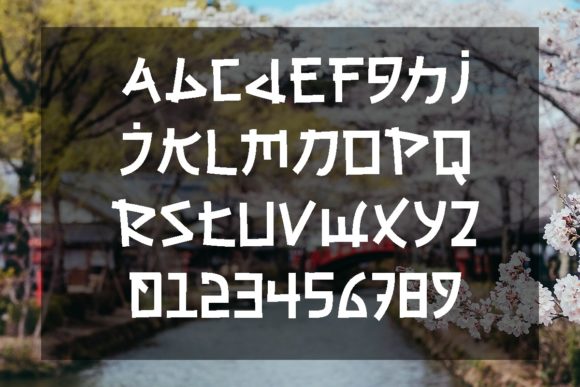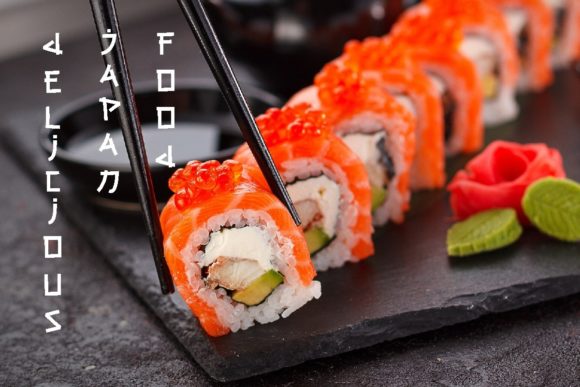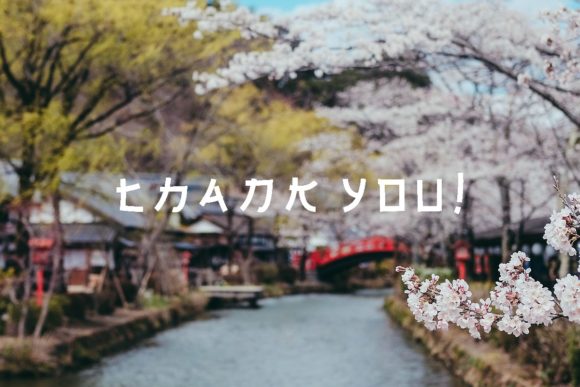
Fuji Font: Elevate Your Designs with a Unique Japanese-Inspired Display Font
Are you tired of using the same old fonts for your designs? Look no further than the Fuji Font, an incredibly unique and Japanese-inspired display font that is sure to take your creations to the next level. With its stunning aesthetic and versatility, Fuji Font is perfect for food menus, posters, flyers, and prints. In this article, we’ll explore the features and benefits of Fuji Font, and how you can use it to elevate your designs.
What is Fuji Font?
Fuji Font is a display font that draws inspiration from Japanese typography and design. Its unique and elegant aesthetic makes it perfect for designs that require a touch of sophistication and cultural flair. The font features bold and intricate strokes, with a distinctive Japanese flair that sets it apart from other fonts.
Key Features of Fuji Font
- Unique and Elegant Aesthetic: Fuji Font boasts a distinctive and elegant aesthetic that is sure to grab attention.
- Japanese-Inspired Design: The font draws inspiration from Japanese typography and design, making it perfect for designs that require a cultural touch.
- Versatile: Fuji Font can be used for a variety of designs, including food menus, posters, flyers, and prints.
- Easy to Read: Despite its intricate design, Fuji Font is easy to read, making it perfect for body text and headings.
Benefits of Using Fuji Font
So why should you use Fuji Font for your designs? Here are just a few benefits:
- Add a Touch of Sophistication: Fuji Font adds a touch of sophistication and elegance to any design, making it perfect for high-end brands and luxury products.
- Stand Out from the Crowd: With its unique and distinctive aesthetic, Fuji Font is sure to make your designs stand out from the crowd.
- Cultural Significance: Fuji Font’s Japanese inspiration adds a touch of cultural significance to your designs, making it perfect for designs that require a cultural or international flair.
- Endless Possibilities: Fuji Font’s versatility means that you can use it for a wide range of designs, from food menus to posters and prints.
How to Use Fuji Font in Your Designs
Using Fuji Font in your designs is easy. Here are a few tips to get you started:
- Pair it with Other Fonts: Fuji Font pairs well with other fonts, including sans-serif and serif fonts. Experiment with different combinations to find the perfect look for your design.
- Use it for Headings and Titles: Fuji Font is perfect for headings and titles, where its unique aesthetic can really shine.
- Experiment with Colors: Fuji Font looks great in a variety of colors, from bold and bright to subtle and muted. Experiment with different colors to find the perfect look for your design.
In conclusion, Fuji Font is an incredibly unique and Japanese-inspired display font that is sure to elevate your designs. With its stunning aesthetic, versatility, and cultural significance, Fuji Font is perfect for designers and crafters looking to add a touch of sophistication and elegance to their creations. So why not give Fuji Font a try and explore its endless possibilities?